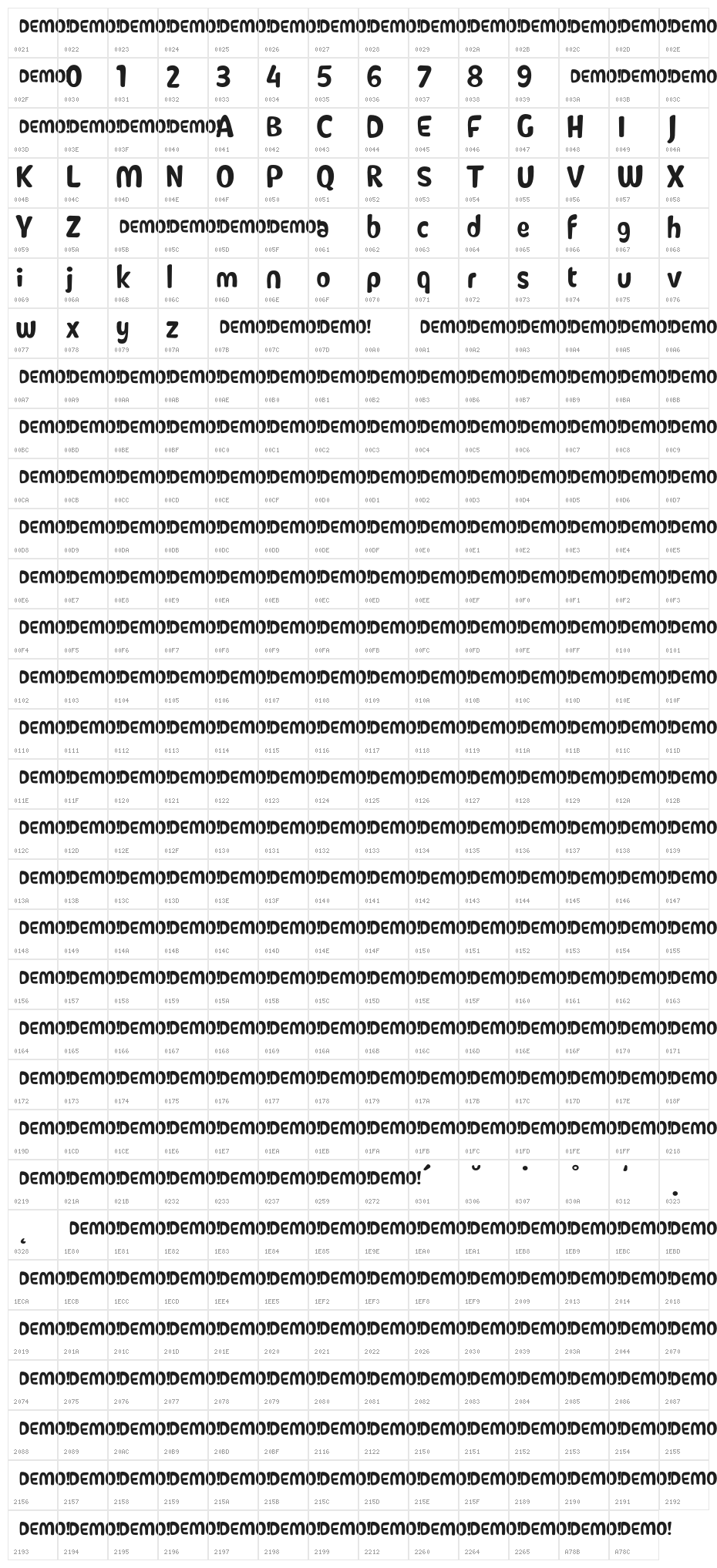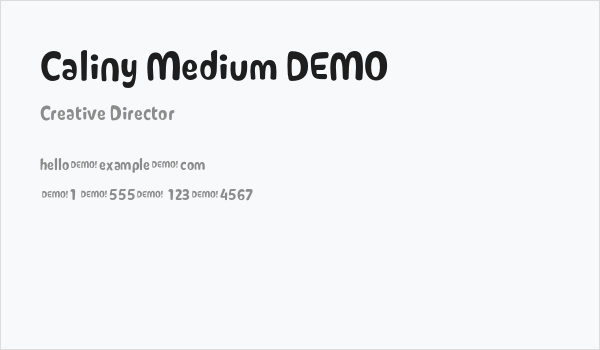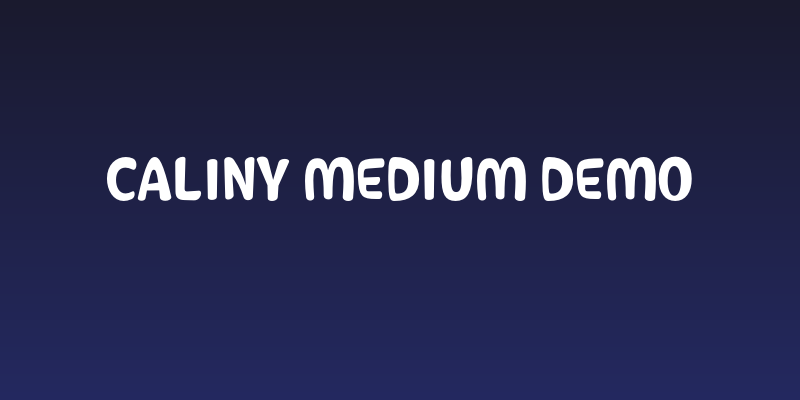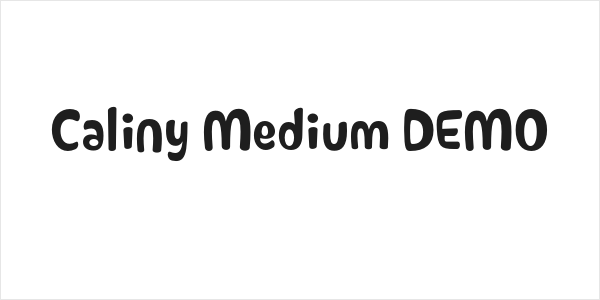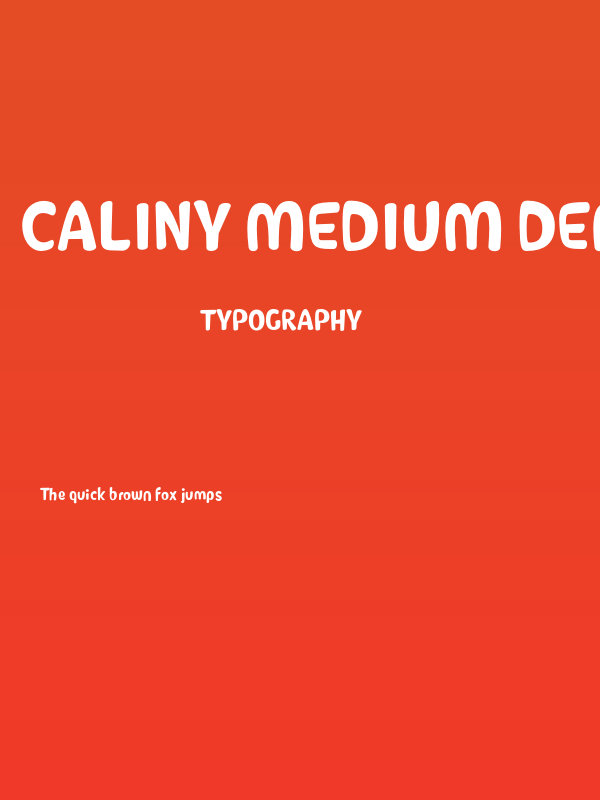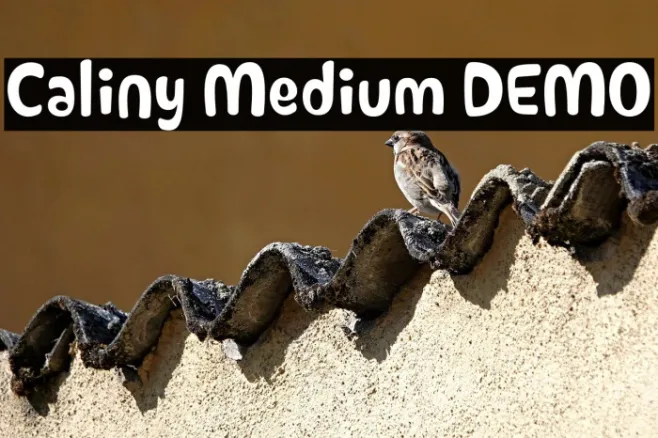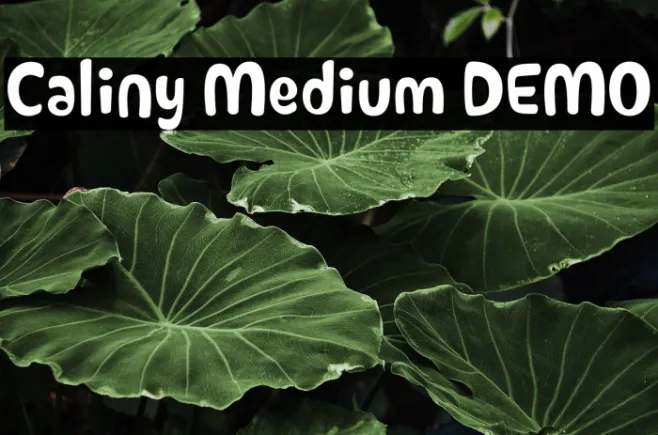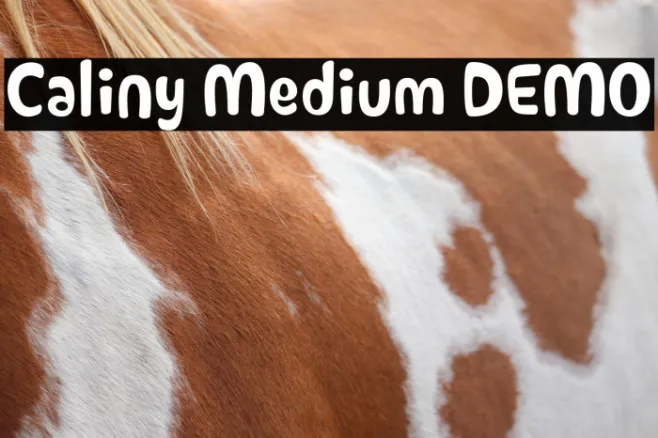
Caliny Medium DEMO Font
Caliny Medium DEMO Description
This font features a playful and rounded style, characterized by its bold and smooth curves. The letters are evenly weighted, providing a consistent and friendly appearance. The uppercase and lowercase letters maintain a uniform width, contributing to a harmonious look. The numbers are similarly styled, ensuring readability and cohesion across different uses. The overall design is approachable and modern, making it suitable for a variety of creative applications.
| Proposed Projects | Ideal for children's books, playful branding, casual invitations, and creative posters. |